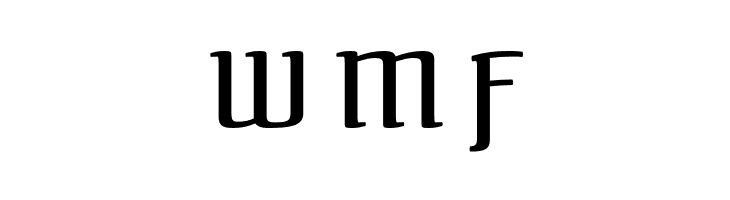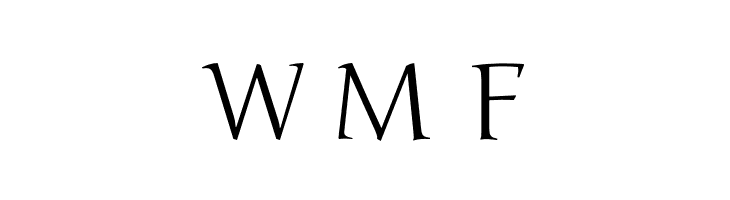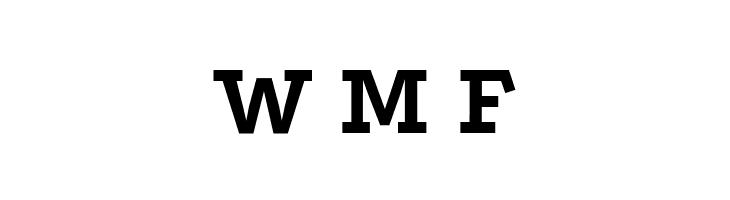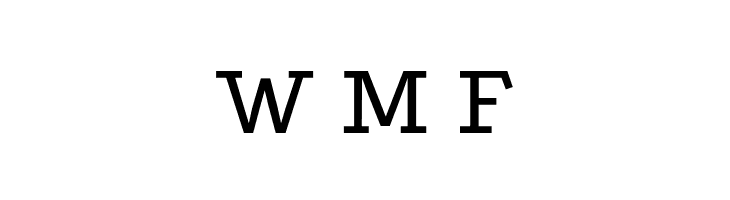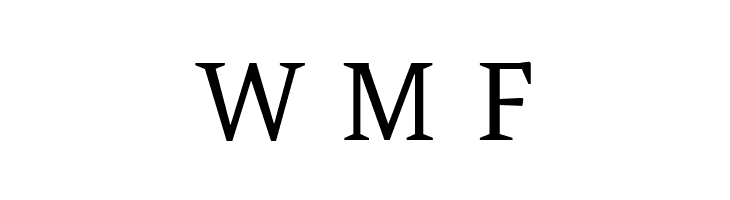
A modern, geometric sans-serif font with a clean, technical appearance.
A modern, sleek font with sharp angles and smooth curves.
A classic serif font with elegant strokes and balanced proportions.
A modern stencil font with geometric lines and an industrial feel.
A modern stencil font with geometric lines and distinct cutouts.
A modern serif font with elegant, refined letterforms and moderate contrast.
A bold, slab serif font with strong, thick strokes and prominent serifs.
A robust slab serif font with a classic yet modern appeal.
A classic serif font with elegant strokes and refined design.
A classic serif font with elegant proportions and subtle contrast.